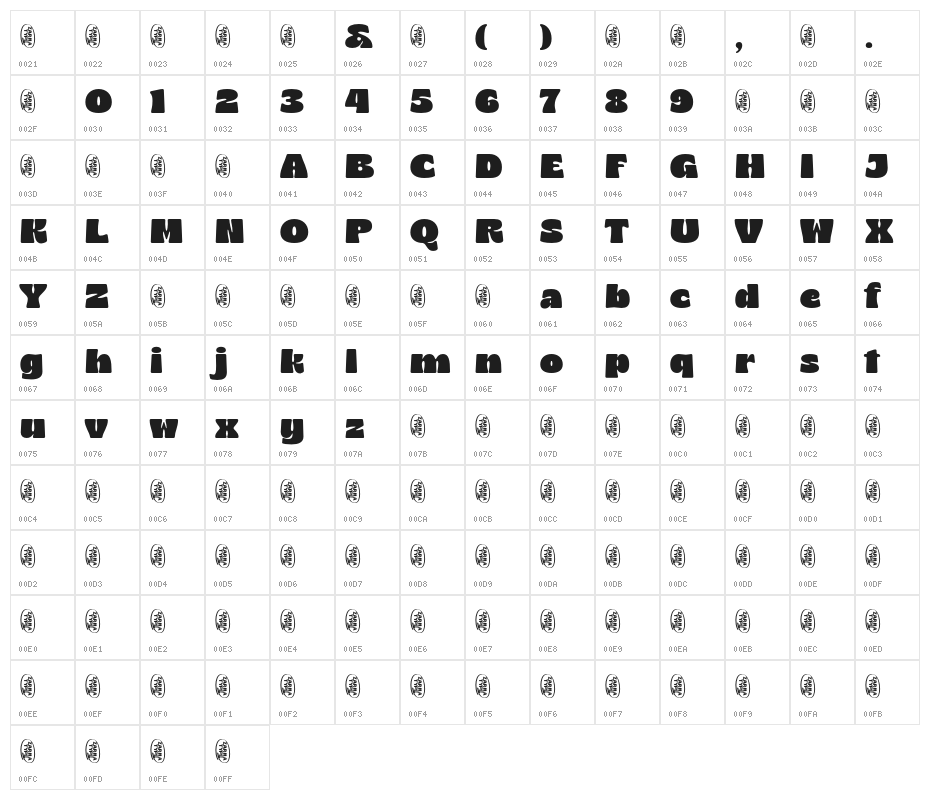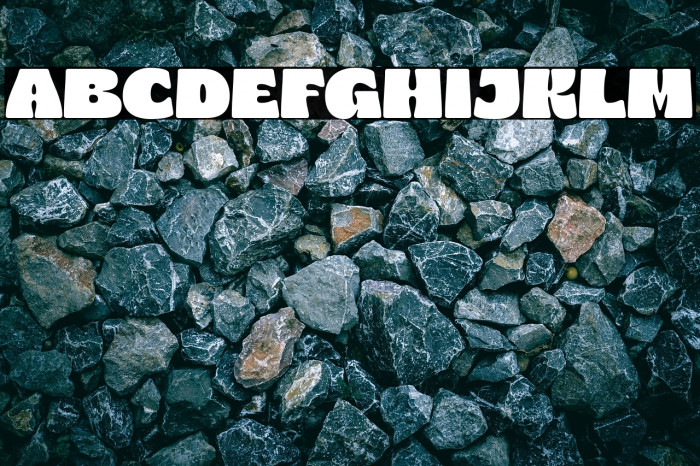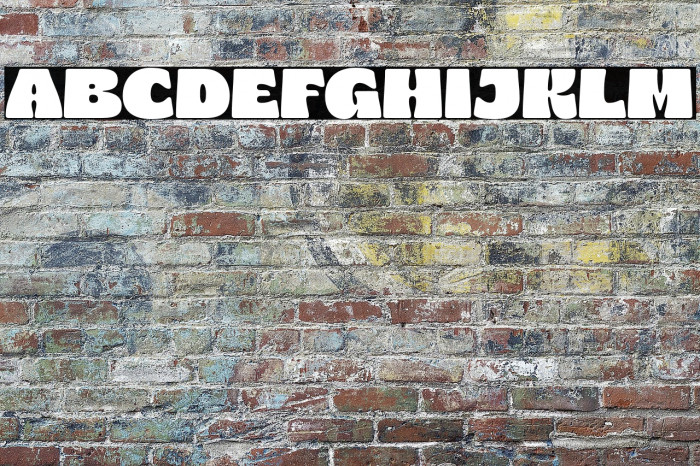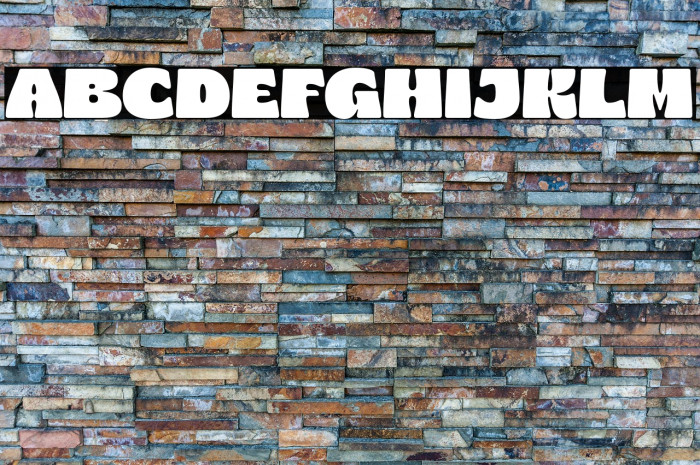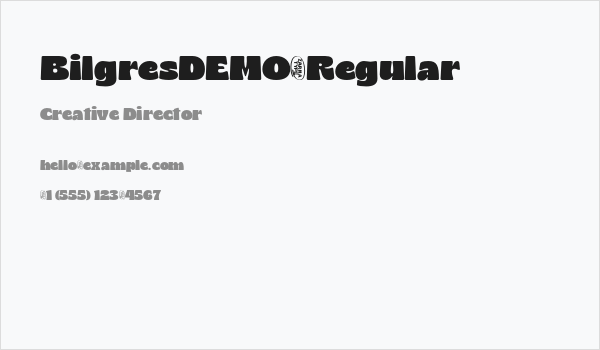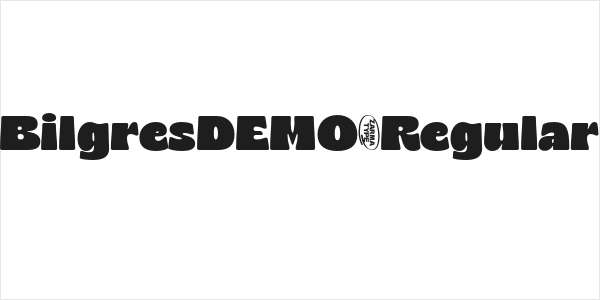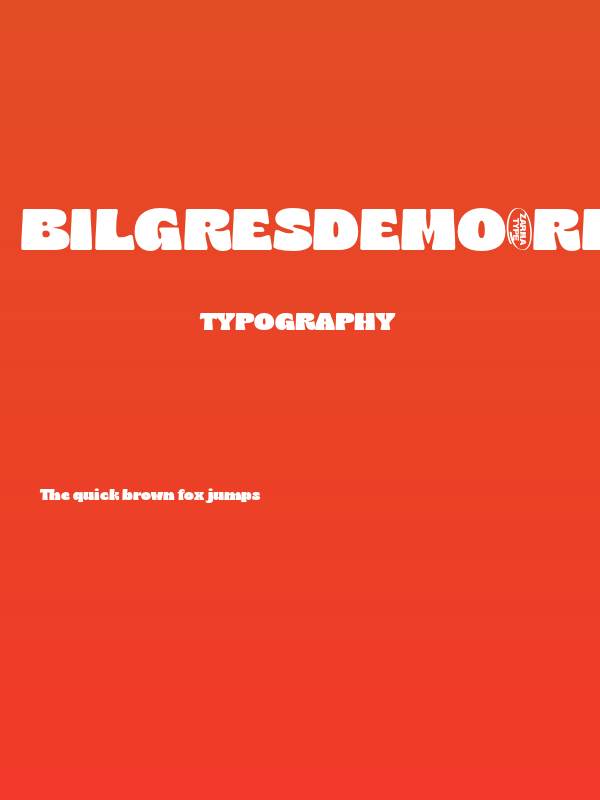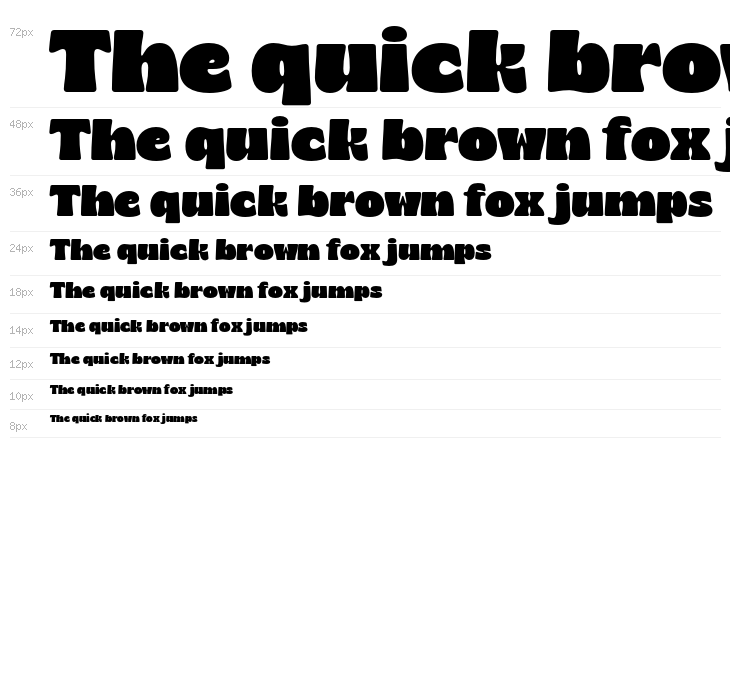
BilgresDEMO-Regular Font
BilgresDEMO-Regular Description
This font features a bold and playful design with thick, rounded strokes that give it a strong and impactful presence. The characters are wide and have a slightly condensed appearance, which adds to their boldness. The uppercase and lowercase letters maintain a consistent style, with smooth curves and a uniform thickness that enhances readability. The numerals and special characters follow the same design principles, ensuring a cohesive look across all elements. This font's unique style makes it suitable for eye-catching designs and creative projects.
| Width | Condensed |
| Overall Style | Playful, Bold |
| Proposed Projects | Ideal for posters, logos, branding, and any project requiring a strong visual impact. |